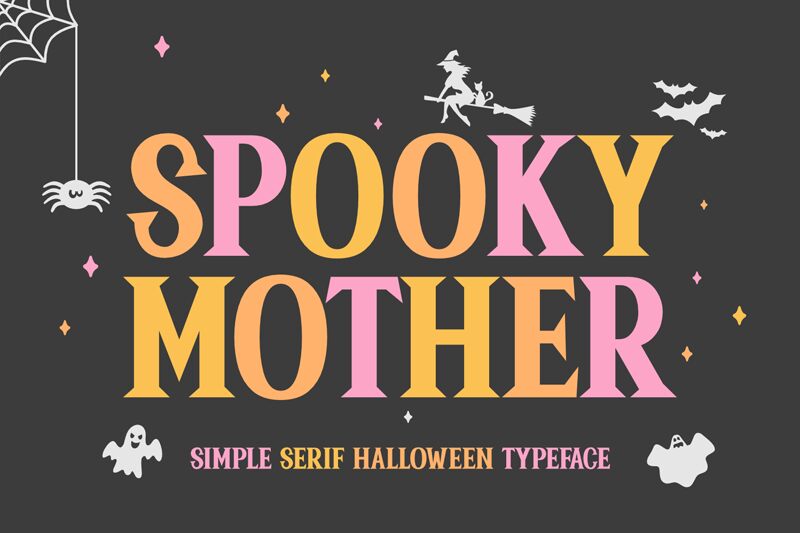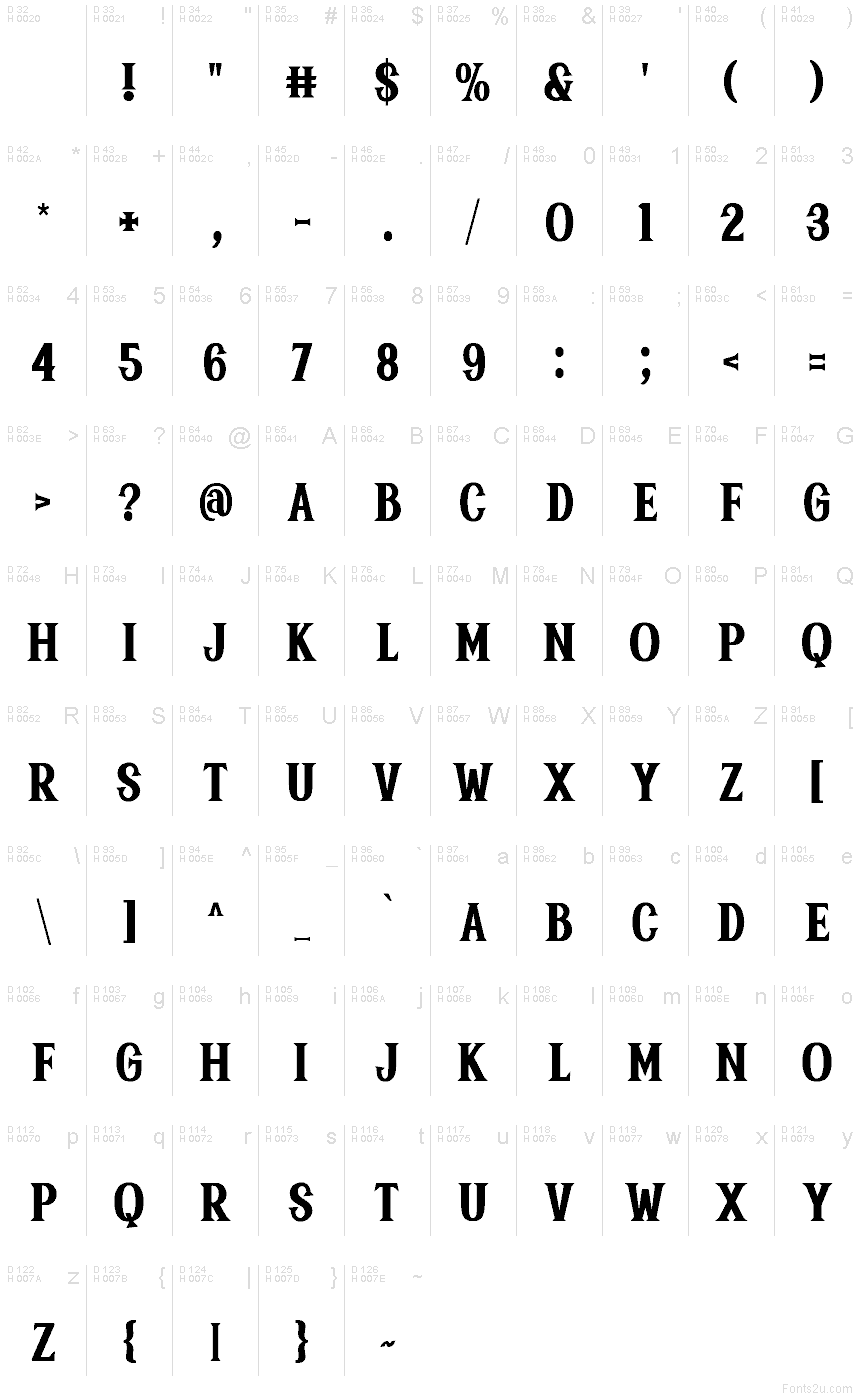
Spooky Mother
Spooky Mother font by keithzo is a free Halloween display font. Built for chills and headlines, it packs thick, compressed letters with dagger-like serifs and a vintage poster vibe. The forms feel theatrical and a touch grimy—like ink pressed from an old woodblock—so your title jumps out with eerie authority while staying neatly stacked on tight layouts.
Using Spooky Mother, you can nail haunted house posters, party invites, candy-bag labels, YouTube thumbnails, yard signs, stickers, and event banners. The heavy contrast reads fast at a distance, and the compact rhythm makes long titles easy to fit. Pair this free font with a plain, modern sans for body copy, and give it a little extra letterspacing at large sizes to let those spiky edges breathe.